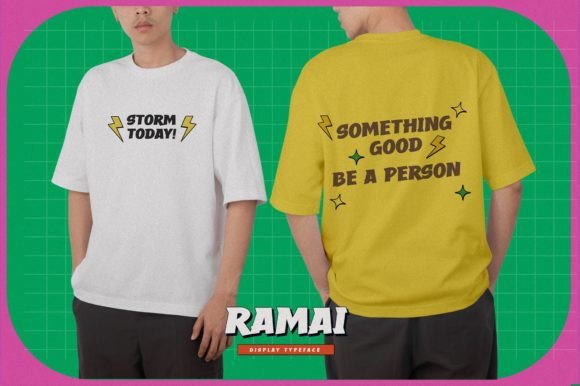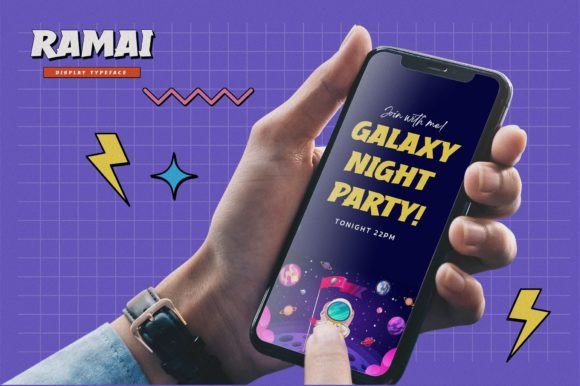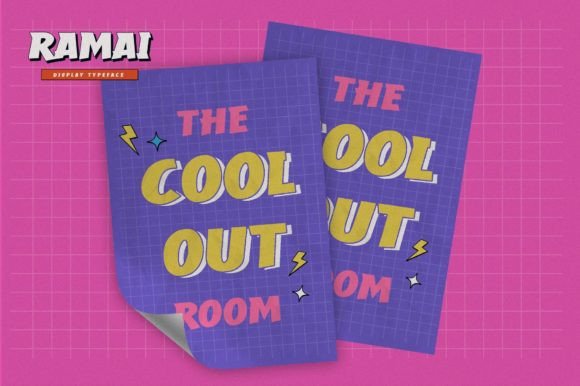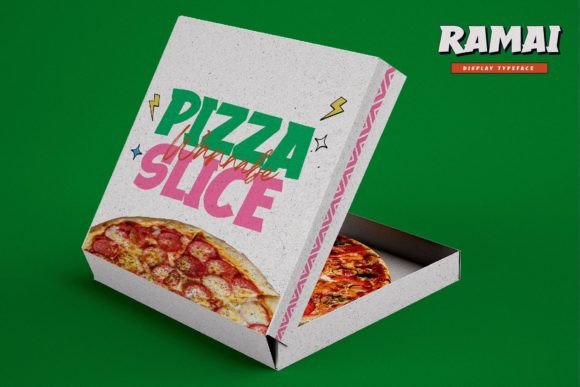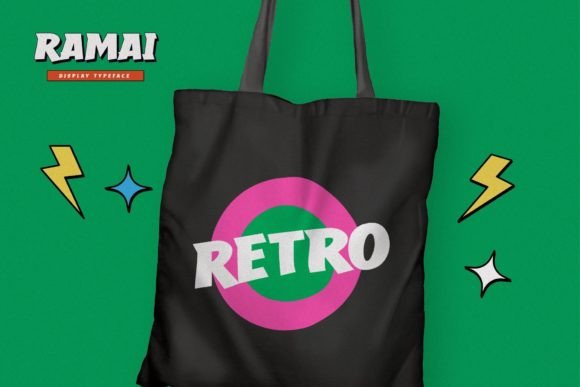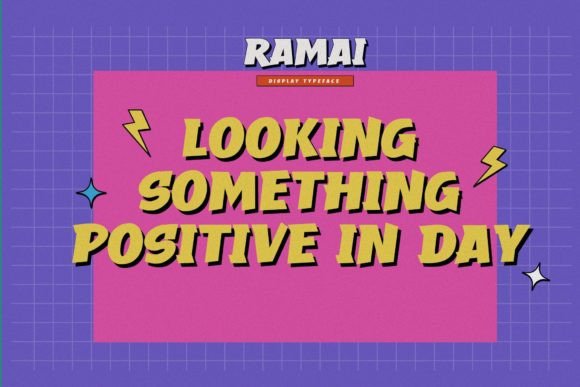
Introduction to Ramai Font
Do you remember that moment when you stumble upon a font that perfectly captures the essence of your creative vision? For designers, this moment is like hitting the jackpot. And, we’re excited to introduce you to one such game-changer – the Ramai Font. This stunning display typeface is designed to add a touch of natural elegance to your design projects.
As a valuable addition to any design resource, Ramai Font is perfect for creating invitations, logos, book covers, crafts, and more. Its unique blend of food logo style and craft-inspired design makes it an ideal choice for quotes, sporty themes, logotypes, wordmarks, and other creative projects.
With its PUA encoding, accessing the magical glyphs is a breeze, making it a high-quality design resource that’s easy to work with. Whether you’re working on a personal or commercial project, Ramai Font is sure to elevate your design to the next level.
Key Features of Ramai Font
- High-quality design resource for creative projects, suitable for various applications.
- Unique, modern design with a transparent background, ideal for digital use.
- Supports a wide range of languages, making it a versatile design resource.
- Includes various font styles and weights, allowing for flexibility in creative projects.
- Designed with high-resolution clarity, suitable for use in print and digital media.
- Perfect for designers, artists, and content creators looking for a free, high-quality design resource.
Honest Review: Ramai Font
As a designer, I’m always on the lookout for high-quality design resources to elevate my creative projects. The Ramai Font caught my attention, and I decided to give it a try.
Here’s what I liked about it: ✨ It has a beautiful, elegant design that’s perfect for titles and headings. ✨ The transparent background makes it easy to use in various design scenarios. ✨ It’s a free download, which is always a bonus.
However, I did encounter some limitations: ⚠️ The font family is limited, which might not be suitable for large-scale projects. ⚠️ The font might not be as versatile as other fonts, especially when it comes to body text.
Overall, I think the Ramai Font is a great addition to any designer’s toolkit. It’s a solid choice for creative projects that require a touch of elegance and sophistication.
Here are some key features that I found useful:
- High-quality design that’s perfect for titles and headings
- Transparent background for easy use in various design scenarios
Tips for Getting the Most Out of Ramai Font
For the best results, use Ramai Font in conjunction with a transparent background to create a clean and modern design aesthetic. Experiment with different font sizes and colors to add visual interest to your projects.
Ramai Font is ideal for use in a variety of creative projects, including branding, logos, and advertising materials. Its high-quality and versatile design make it a great choice for designers looking to add a touch of sophistication to their work.
Comparison to Ramai Font: While Ramai Font is more playful and casual, Great Vibes Font is more refined and elegant. Great Vibes Font is a better choice when you want to convey a sense of high-end quality and sophistication.